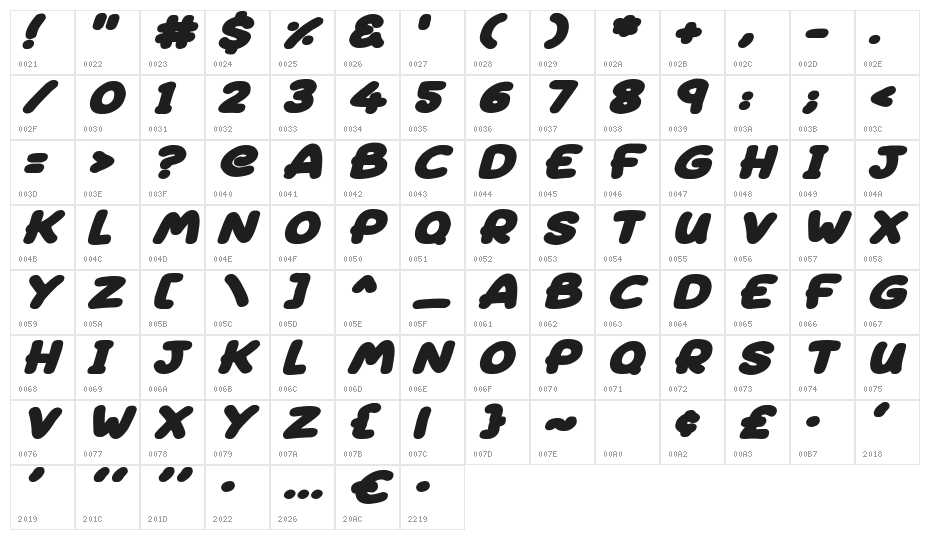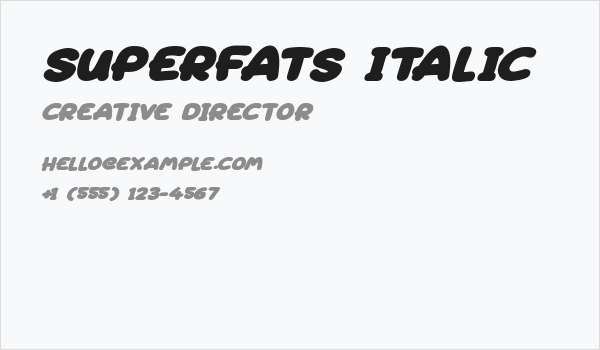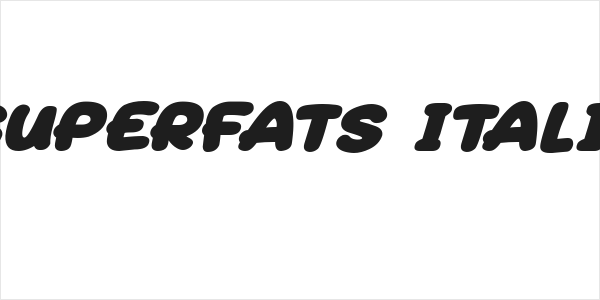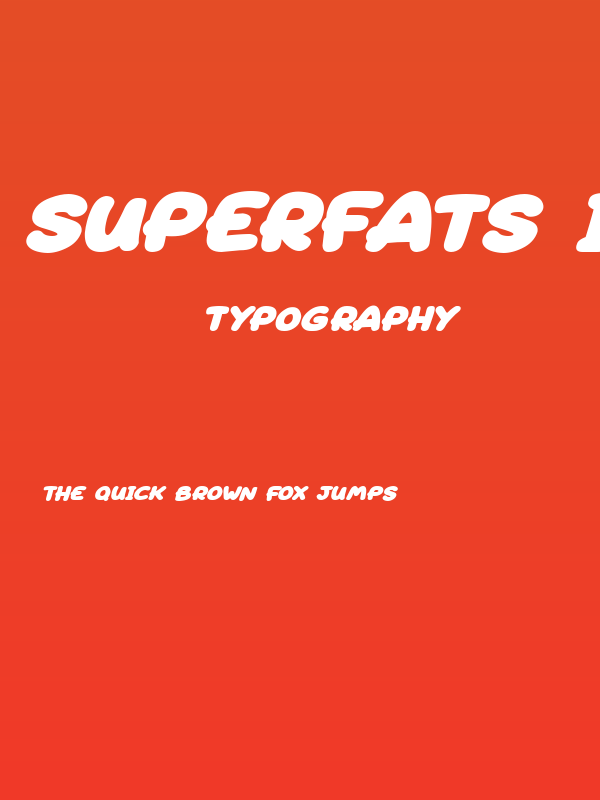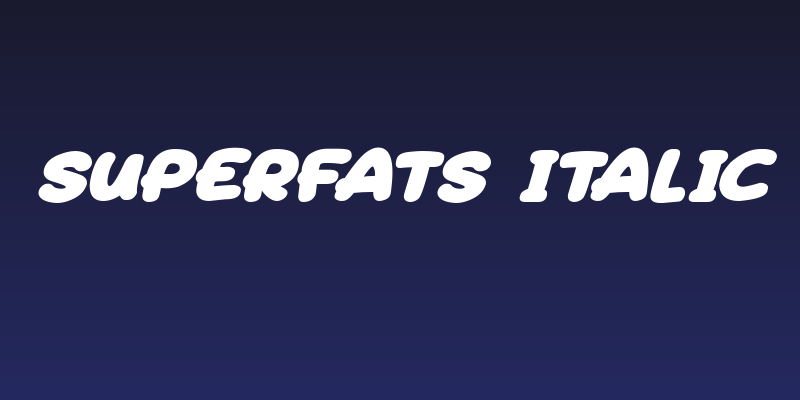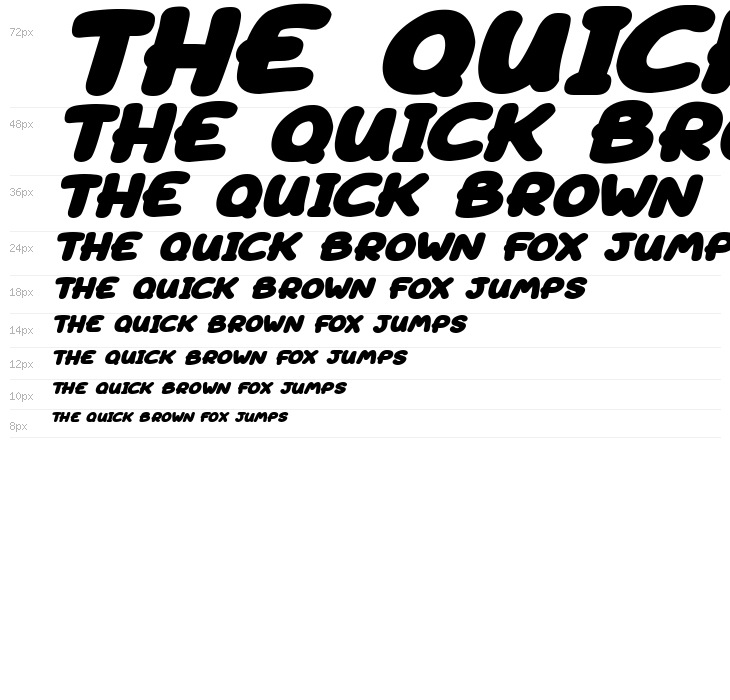
Superfats Italic Font
Superfats Italic Description
This font features a bold and playful design with a distinctly rounded and smooth appearance. The characters are thick and slightly slanted, giving them a dynamic and energetic feel. The strokes are consistent in weight, contributing to a cohesive and unified look. The overall style is informal and fun, making it suitable for creative and lighthearted projects. The font includes a full set of uppercase and lowercase letters, numbers, and a variety of special characters, ensuring versatility in its application.
| Proposed Projects | Ideal for children's books, playful branding, posters, and social media graphics. |